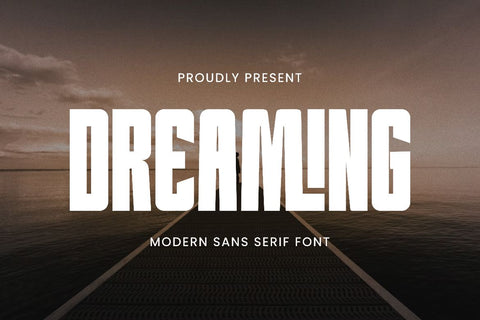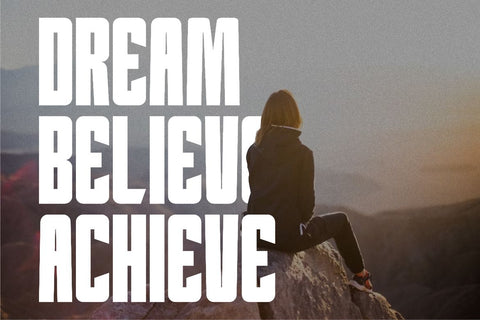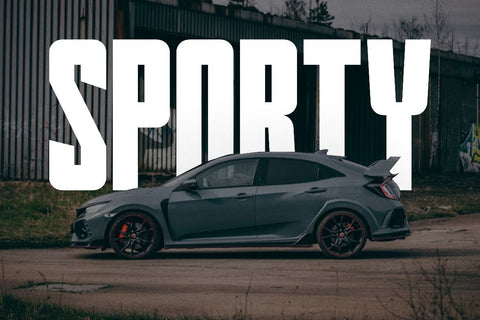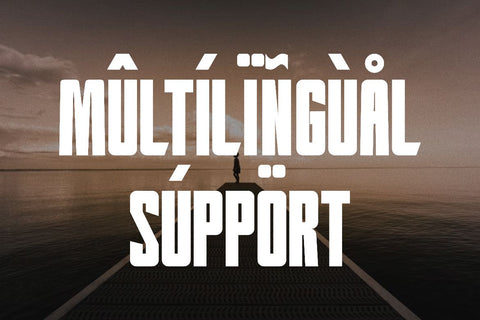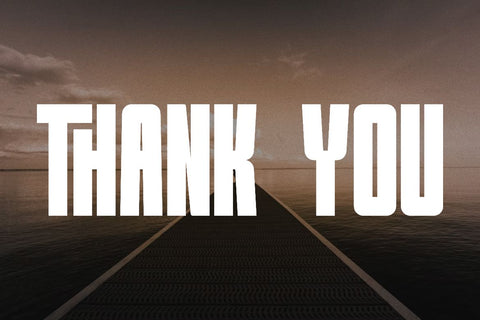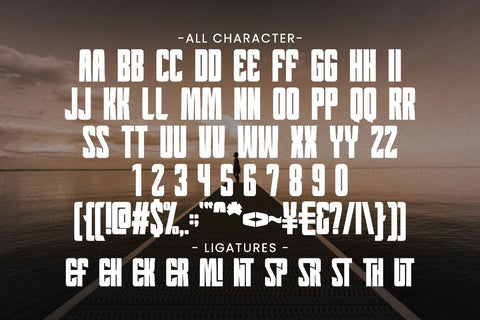
Dreaming - Bold Modern Sans Serif Font
Dreamling is a bold and modern sans serif font with a futuristic, cinematic style perfect for impactful designs. Its sharp edges and condensed structure make it ideal for Print On Demand products, film titles, game logos, branding projects, t-shirt designs, posters, and merchandise. Whether you're crafting a movie-inspired design or a bold statement for your apparel store, Dreamling delivers a strong visual presence. Comes in OTF and TTF formats and PUA encoded for easy access. Perfect for designers, creators, and entrepreneurs looking to level up their creative projects with a modern display typeface.